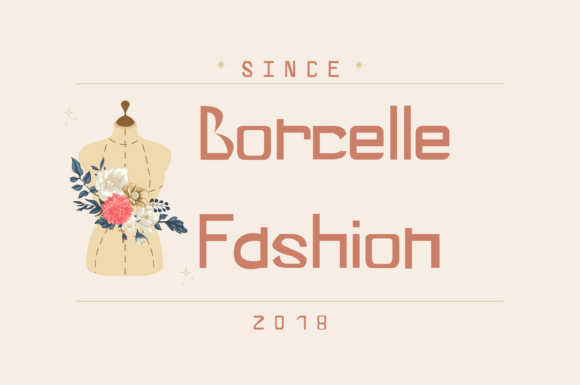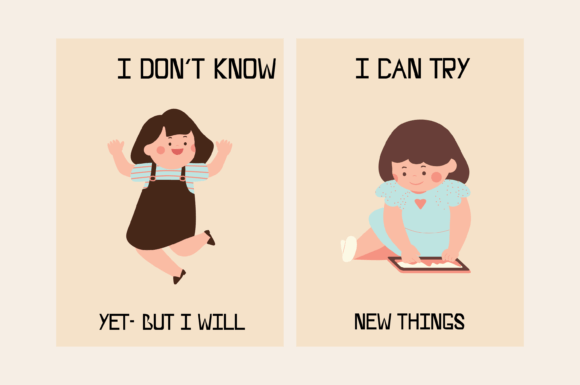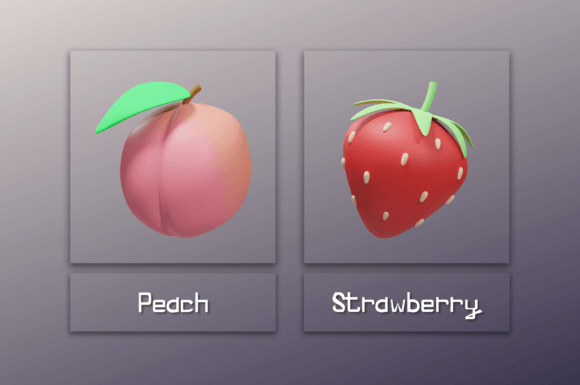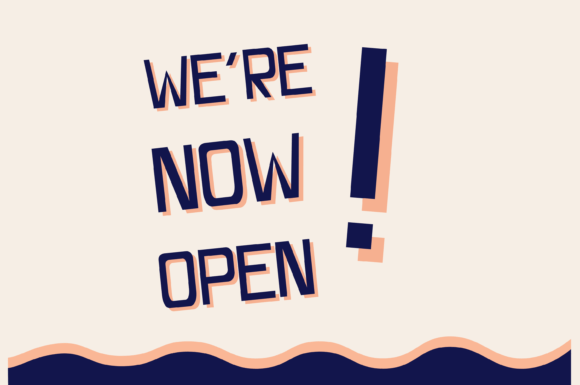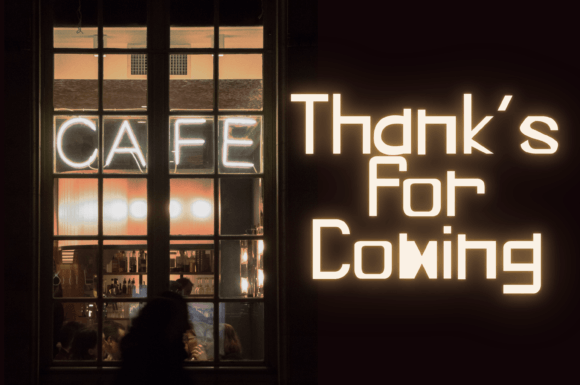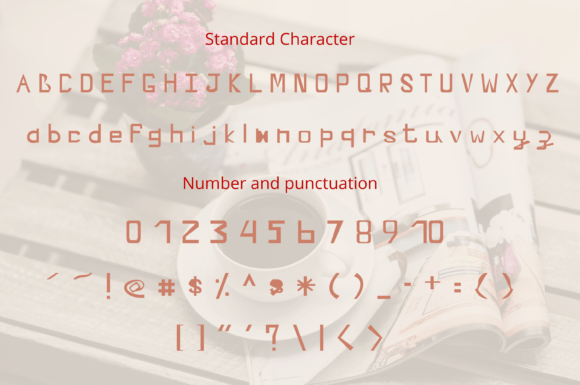
The Perfect Cup: Discovering the Charm of Coffee House Font
I’ll never forget the design struggle I faced while working on a project for a trendy coffee shop. My client wanted a font that was both clean and whimsical, but I was coming up empty-handed. That was until I stumbled upon Coffee House Font, a game-changing sans serif font that instantly elevated my design. In this article, I’ll share my experience with Coffee House Font, its features, and how to make the most of it in your creative projects.
A First Impression: What I Love About Coffee House Font
Coffee House Font has quickly become a staple in my design toolkit, and for good reason. Here are some features that I absolutely love:
- ✨ Clean and modern aesthetic: Coffee House Font boasts a crisp, sans serif design that’s perfect for a wide range of projects, from branding to packaging.
- ✅ Whimsical touch: This font has a playful side that’s sure to add a dash of personality to your designs.
- 💡 Versatility: Whether you’re working on a digital project or a print design, Coffee House Font adapts seamlessly.
A Few Quirks to Consider
No font is perfect, and Coffee House Font is no exception. Here are a few things to keep in mind:
- 🤔 Limited italic options: While the font does offer some italic styles, they might not be as extensive as you’d like.
- ⚠️ Glyph compatibility: Some glyphs might not work as expected in certain software or platforms.
The Story Behind Coffee House Font
Coffee House Font was designed with the modern creative in mind. Its creator aimed to craft a font that was both clean and playful, perfect for a wide range of design projects. While the exact story behind the font’s creation is unclear, it’s evident that Coffee House Font was designed to bring a touch of whimsy to your designs.
| Font Name | Coffee House Font |
| Author | AchiArt |
| What type of projects is Coffee House Font best suited for? | Coffee House Font is versatile and can be used in a variety of projects, including branding, packaging, digital designs, and print materials. |
| Is Coffee House Font suitable for body text? | While Coffee House Font is primarily designed for display text, it can be used for body text in certain contexts. However, its readability might vary depending on the size and style. |
| Does Coffee House Font offer any OpenType features? | Yes, Coffee House Font offers some OpenType features, including glyphs and stylistic alternates, which can be accessed in compatible software. |